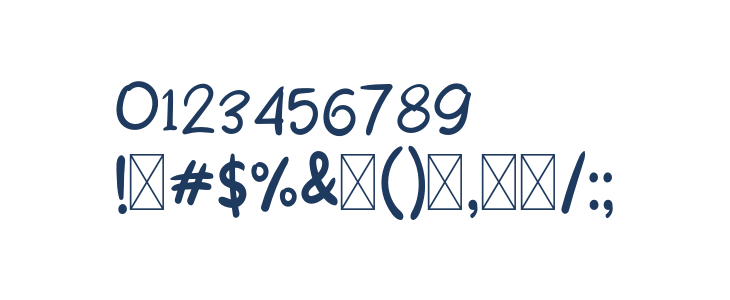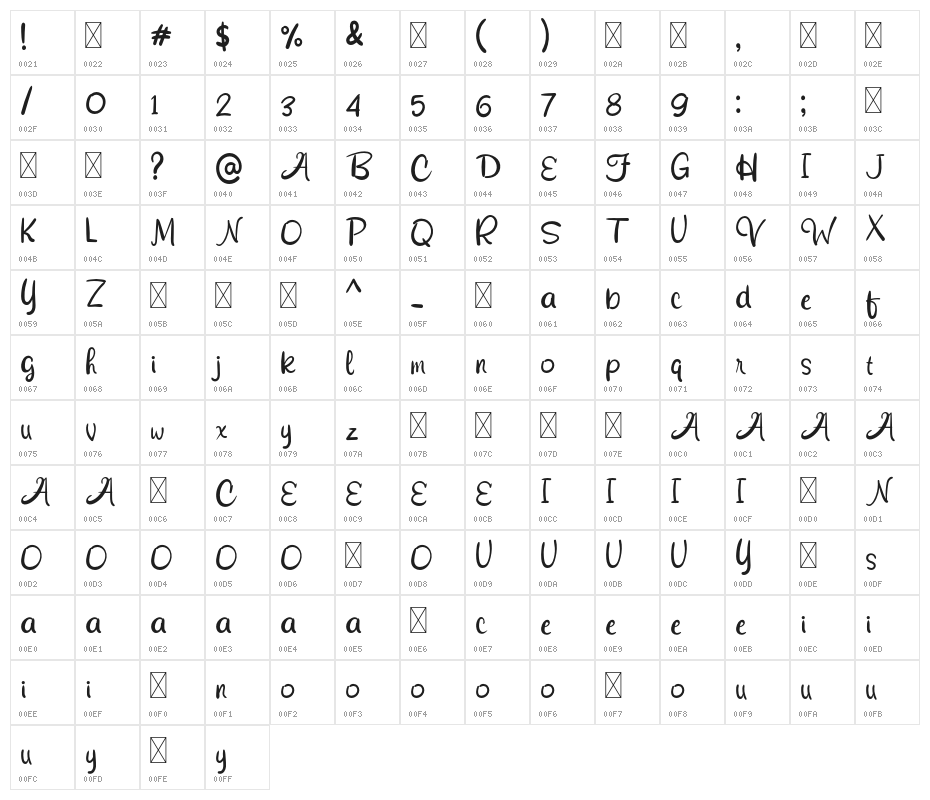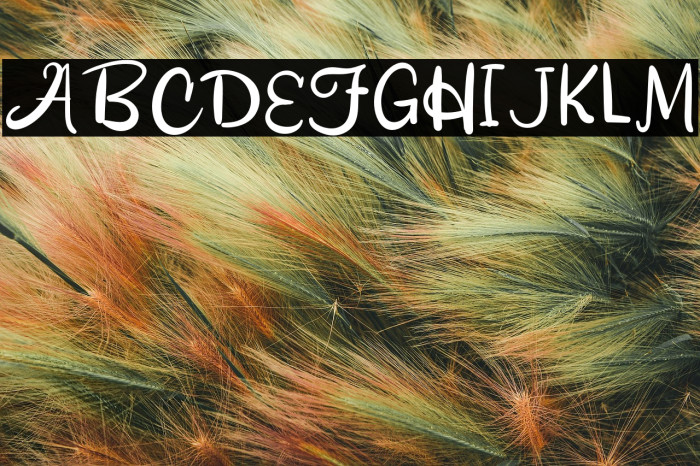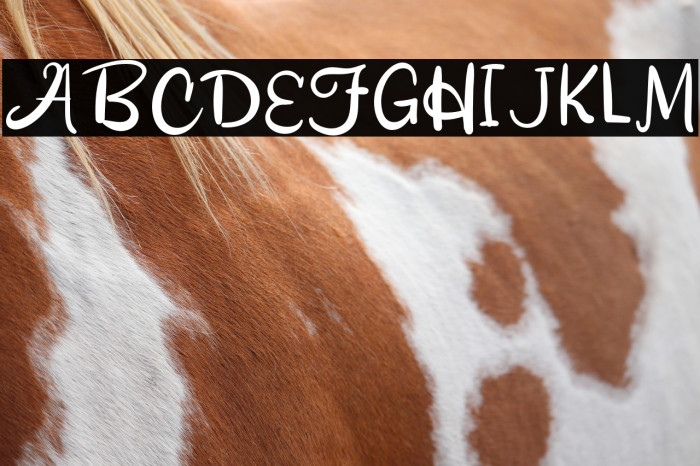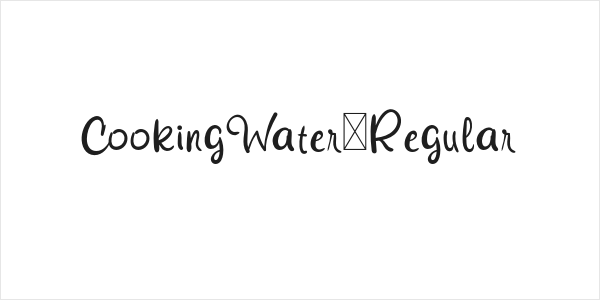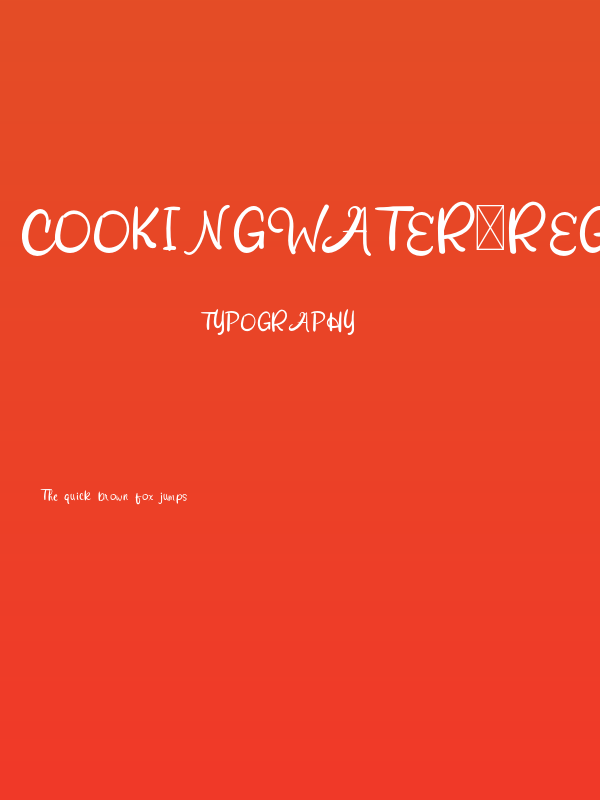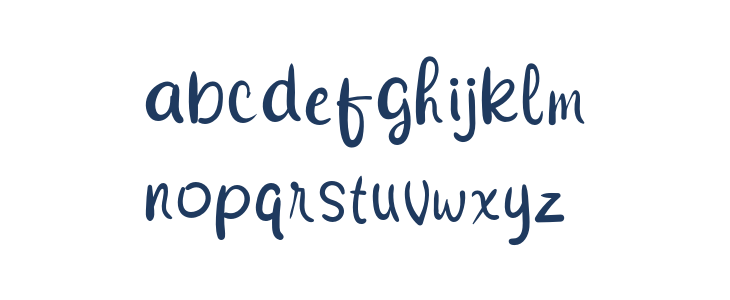
CookingWater-Regular Font
CookingWater-Regular Description
This font features a playful and whimsical design, characterized by its fluid and curvy strokes. The uppercase letters exhibit a lively bounce, while the lowercase letters maintain a consistent flow, adding to its charm. The numerals are bold and rounded, complementing the overall style. Special characters are creatively designed, enhancing the font's decorative appeal. The font's unique personality makes it suitable for projects that require a touch of fun and creativity.
ContrastMedium
Overall StylePlayful
Use CaseHeadlines, Logos, Posters
Proposed ProjectsIdeal for children's books, playful branding, greeting cards, and creative posters.